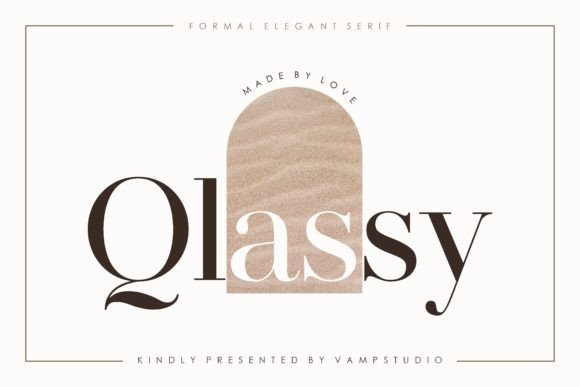
Unleash the Elegance: Introducing Qlassy Font, the Epitome of Minimalist Charm
In a world awash with visual noise, simplicity reigns supreme. Embrace the power of minimalism with Qlassy Font, a modern and elegant serif typeface that exudes sophistication and timeless appeal. Qlassy is not just a font; it's a statement of style, a declaration of your discerning taste.
Picture this: Your logo, rendered in the refined strokes of Qlassy, commands attention without overpowering. Your wedding invitations, adorned with Qlassy's delicate curves, evoke a sense of timeless romance. Your social media posts, infused with Qlassy's understated elegance, captivate your audience with their polished allure.
Qlassy's versatility extends beyond digital realms. Envision product packaging adorned with Qlassy's distinctive serifs, giving your products an air of exclusivity. Picture labels that whisper Qlassy's refined charm, transforming ordinary items into objects of desire. Qlassy breathes life into watermarks, adding a touch of sophistication to your images.
With Qlassy as your creative companion, your invitations and stationery will radiate elegance, making every occasion a celebration of style. Its clean lines and unassuming presence make it the perfect font for those who appreciate the understated beauty of minimalism.
So, why settle for ordinary when you can embrace the extraordinary? Step into the realm of minimalist chic with Qlassy Font. Let your designs speak volumes with Qlassy's understated elegance. Experience the transformative power of simplicity and elevate your creative projects to new heights.